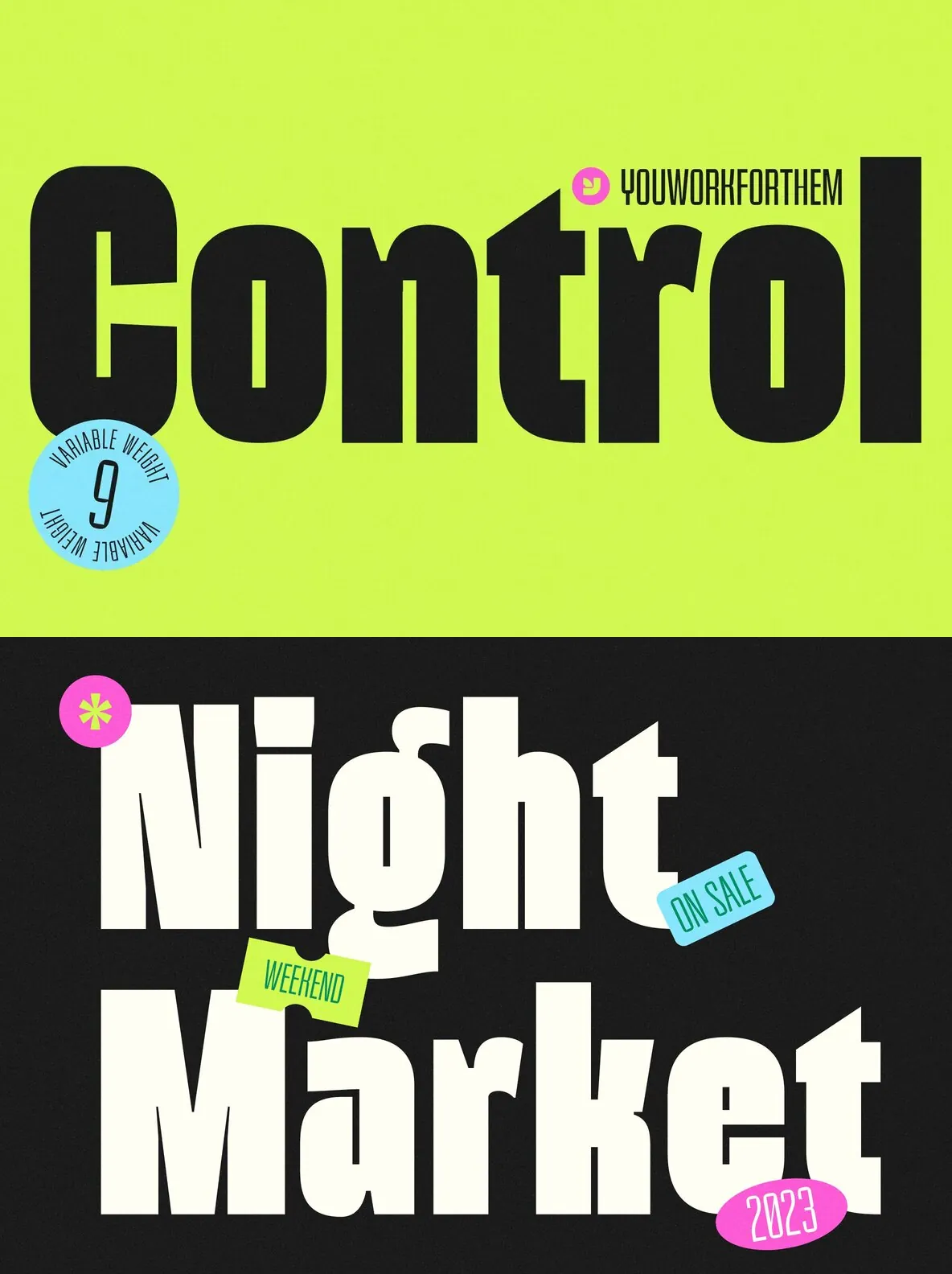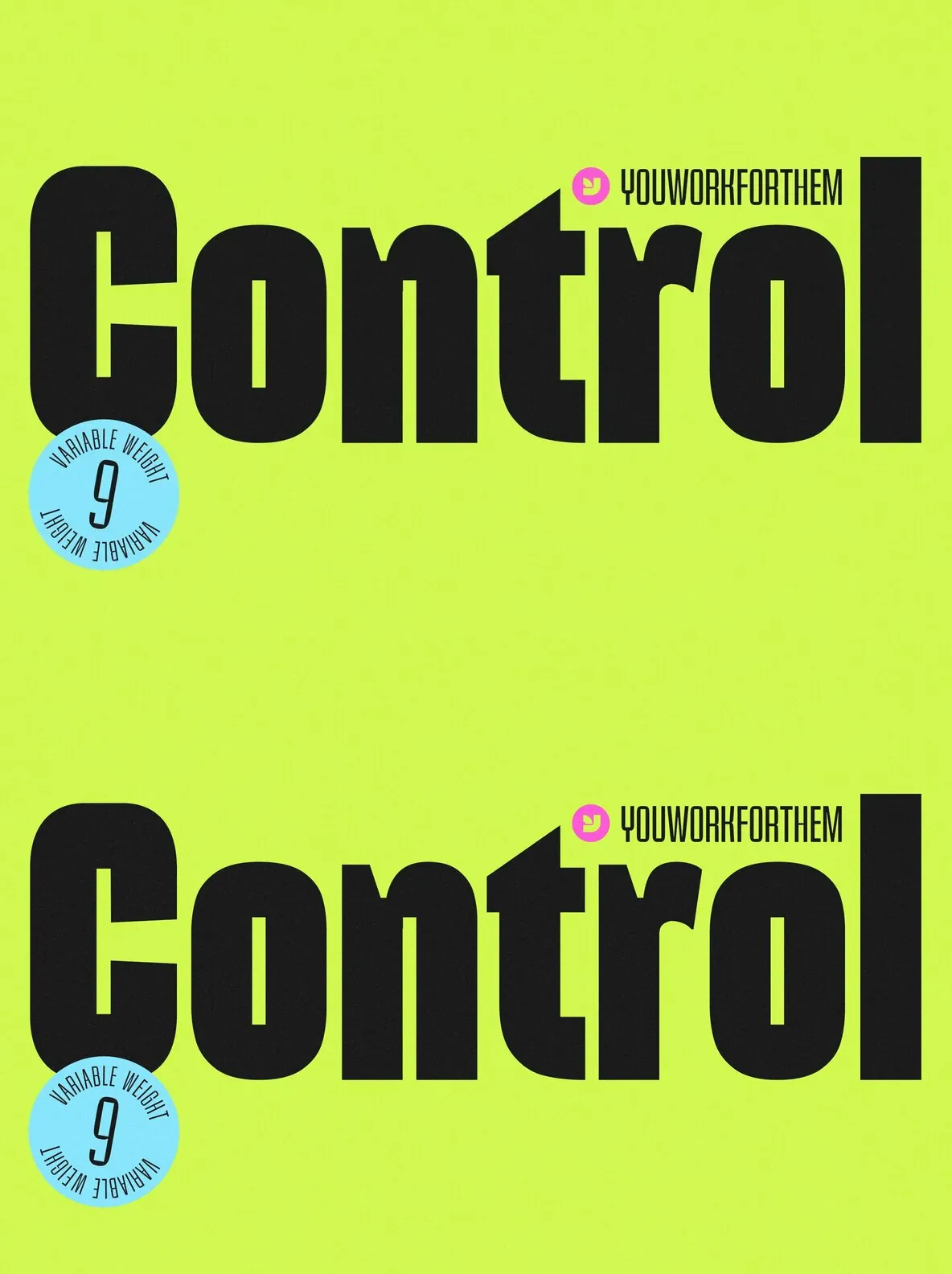
YWFT Control: The Fusion of Modernity and Timelessness
In the dynamic world of graphic design, YWFT Control stands as a beacon of innovation and precision. This font collection is not merely a tool but an artistic statement, bridging the gap between contemporary flair and enduring design principles. YWFT Control is more than typography; it’s a visual symphony, crafted meticulously in the form of a sophisticated sans-serif typeface.
A Typeface That Speaks Volumes
For the graphic designer with an eye for the novel and a heart for precision, YWFT Control is an irreplaceable asset. It embodies the essence of strength and clarity in every line and curve. This typeface doesn’t just display text; it imbues your designs with a power and presence that leaves an indelible mark. Every stroke in YWFT Control is a testament to quality, each glyph a showcase of unrivaled craftsmanship.
Features:
Modern Sans-serif Aesthetics: A contemporary take on classic sans-serif, offering a sleek, forward-thinking look.
Clear, Defined Font Characteristics: Every character is crafted for high legibility and impact, ensuring your message stands out.
Exquisite Detailing: Precision in design translates to an enhanced visual appeal, making every word a focal point.
Design for Strength and Precision: Ideal for brands and designs that command attention and respect.
In every project where distinction is key, YWFT Control emerges as an essential component of the designer’s toolkit. It’s not just a font; it’s a declaration of quality and an invitation to engage with design on a deeper level.